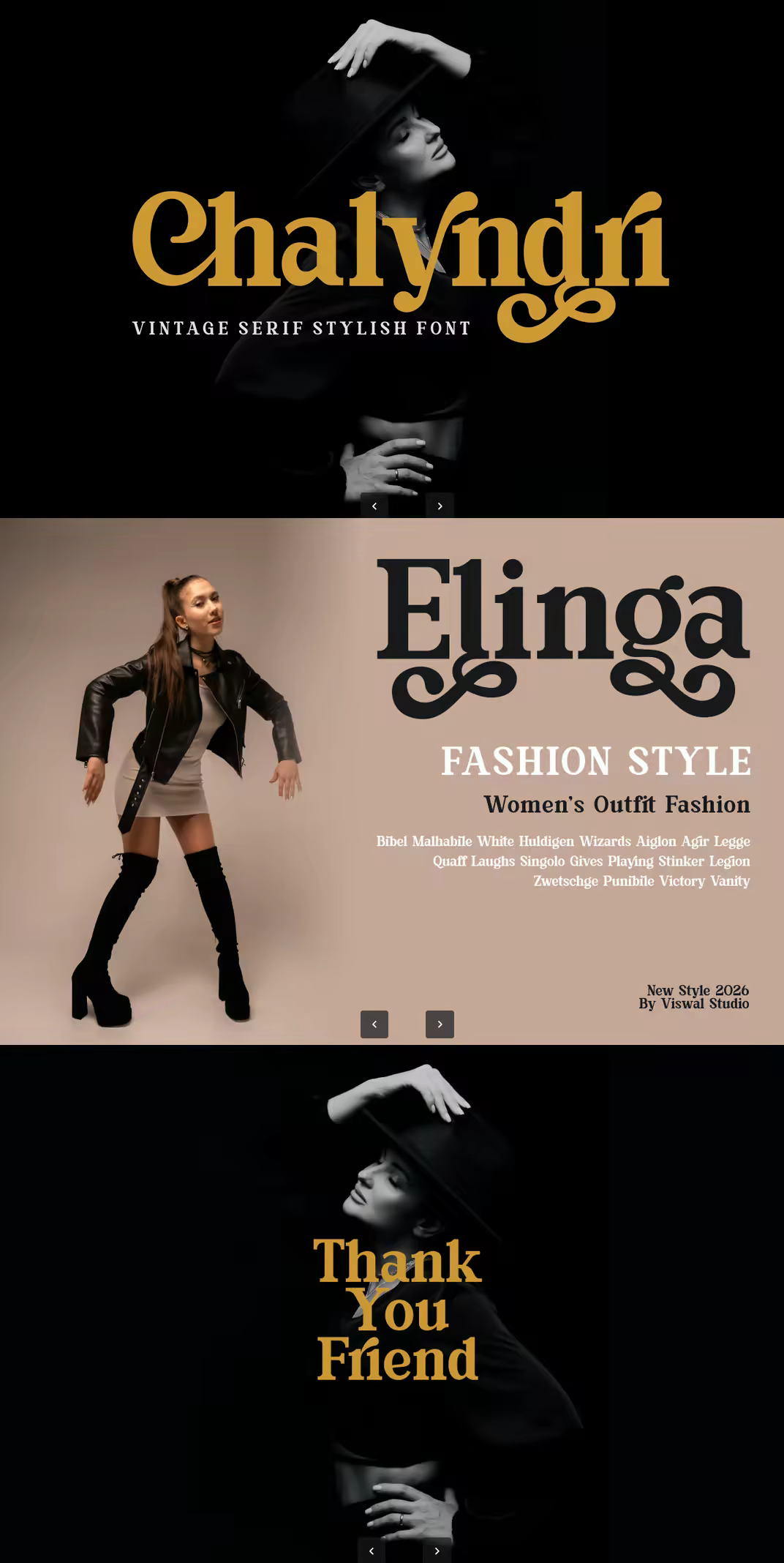
Presenting Chalyndri Is A Modern Vintage Serif Font. Can Make It Easier To Convey The Message In Your Design. Font Is Suitable For Logo, Labels, Badge, Branding, Magazine, Poster, Title, Gigs, Covers And Etc. Our Fonts Have Uppercase & Lowercase, Numeral & Punctuation, And Opentype Features. For Amazing Designs You Can Mix With Other Fonts As A Complement.